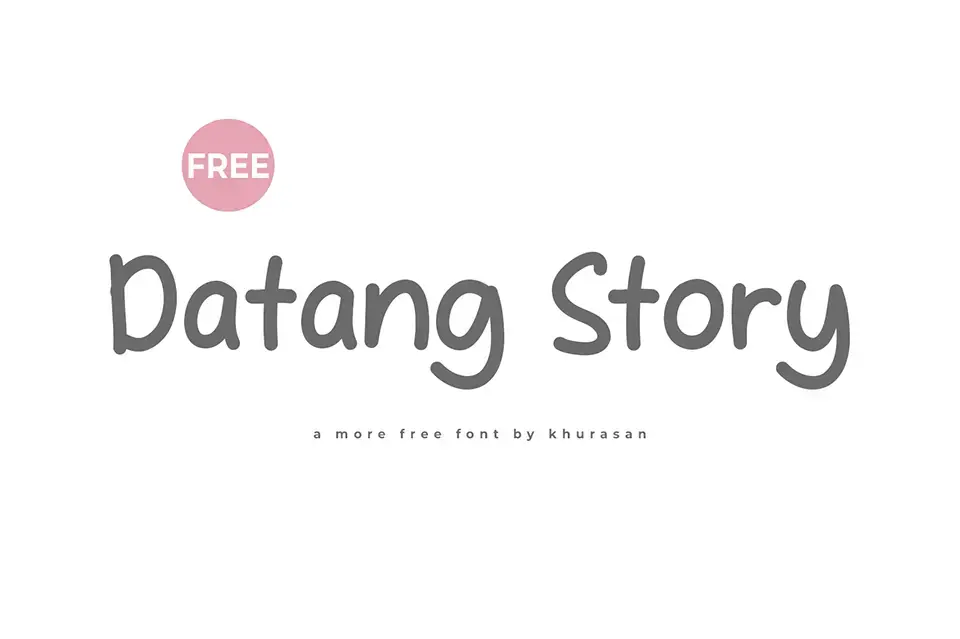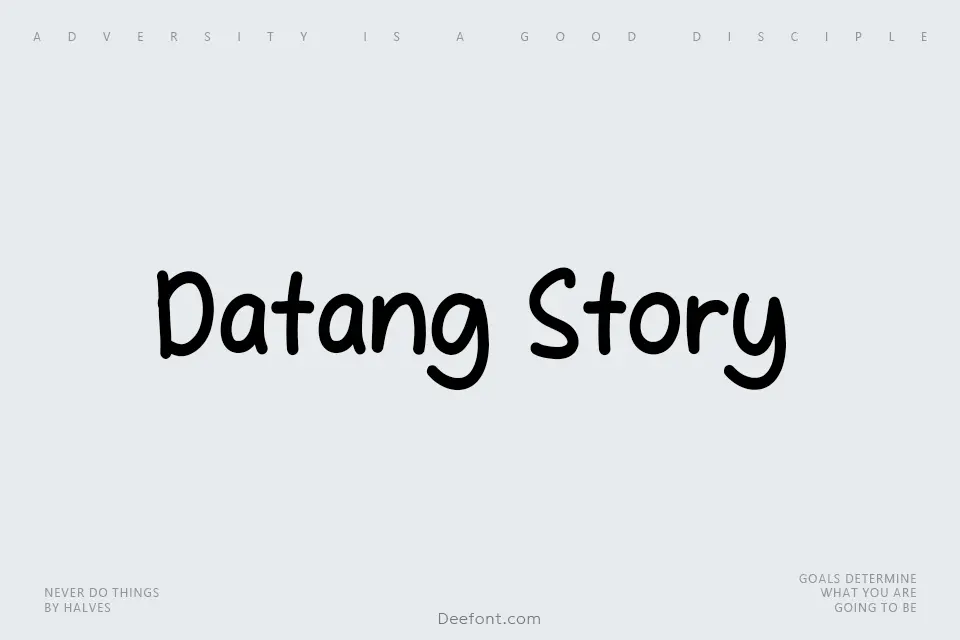
Datang Story Font
Datang Story is an elegant handwritten script font characterized by flowing, organic strokes and a contemporary aesthetic that seamlessly blends casual spontaneity with refined charm. Featuring smooth letterforms and natural pen-like qualities, this typeface excels in creative applications including wedding invitations, logo design, branding materials, artistic posters, and decorative headings. The font's distinctive handwritten personality and authentic character make it an exceptional choice for designers seeking to infuse projects with warmth, personality, and visual sophistication. Its versatile nature renders it suitable for both personal creative endeavors and professional commercial applications across diverse industries.